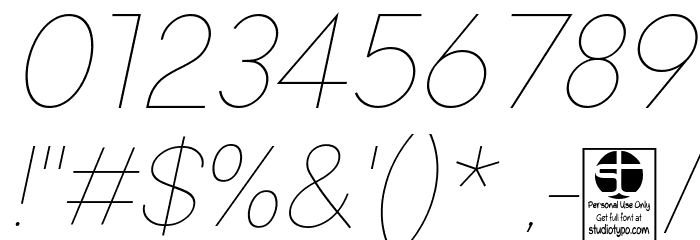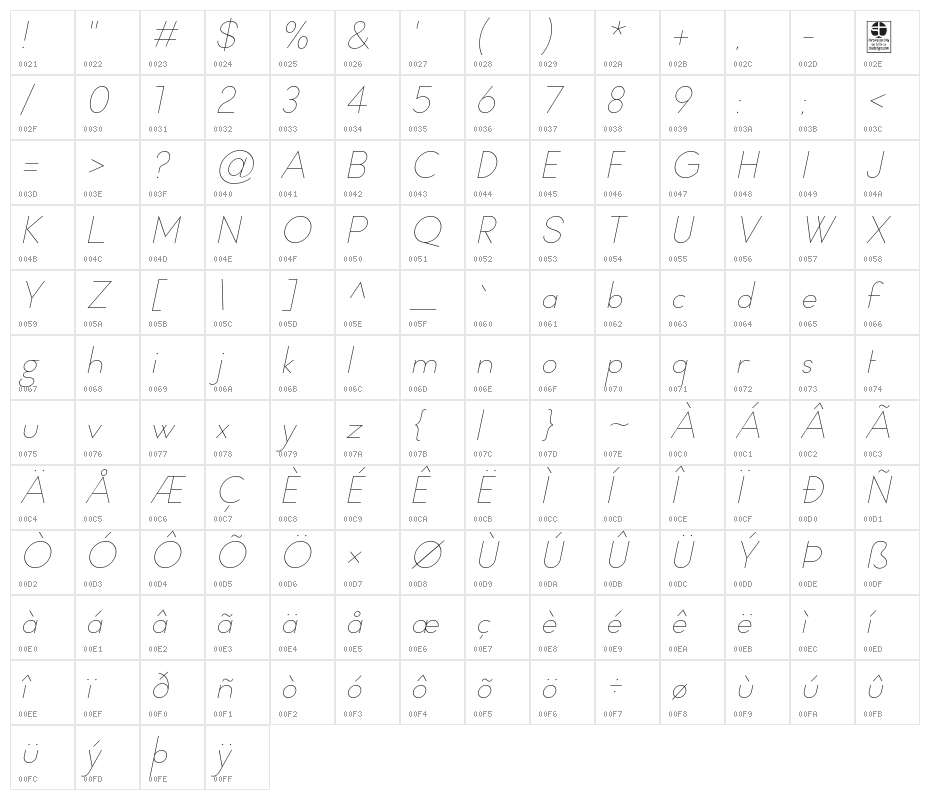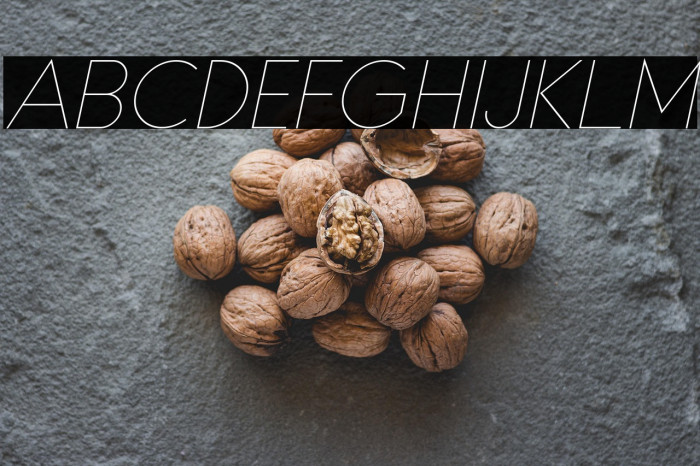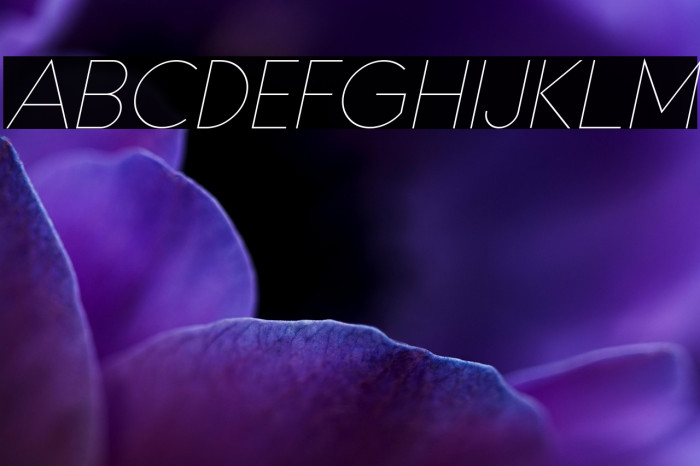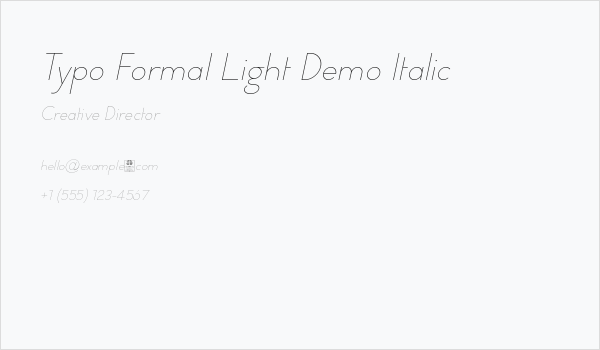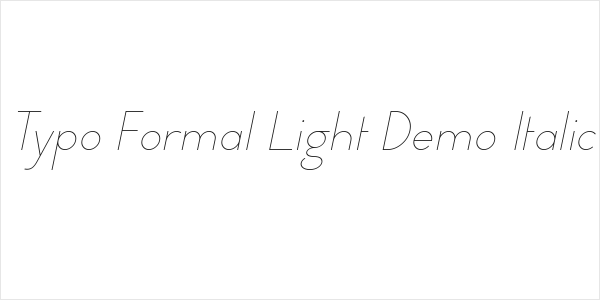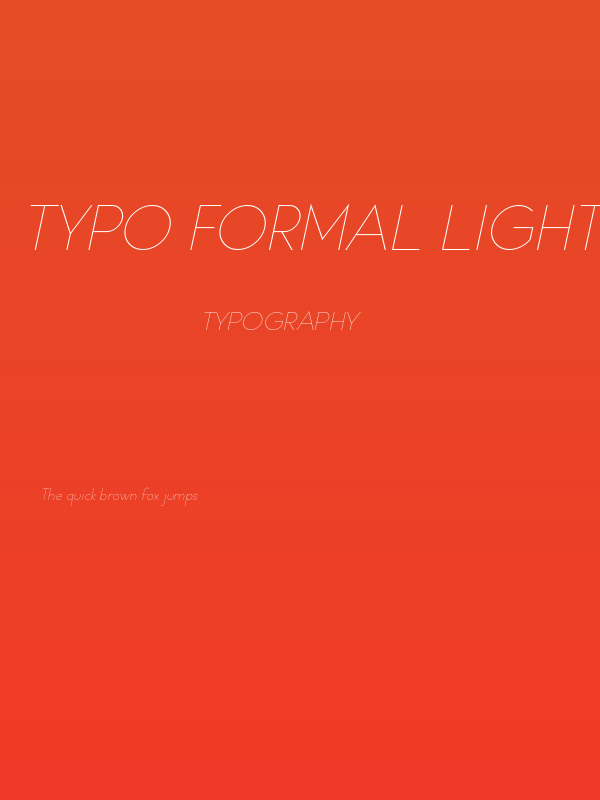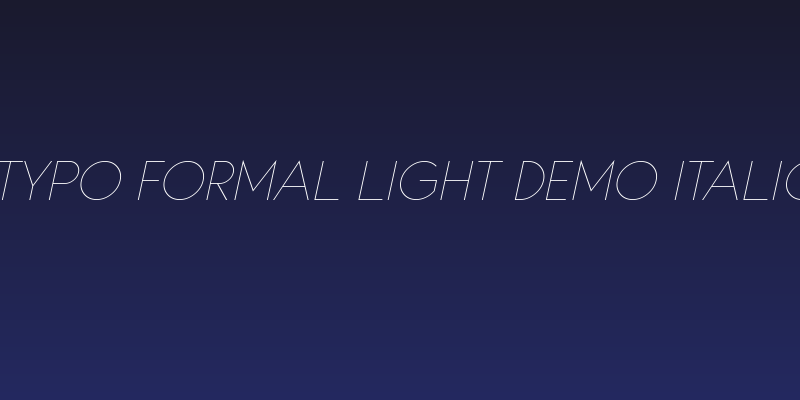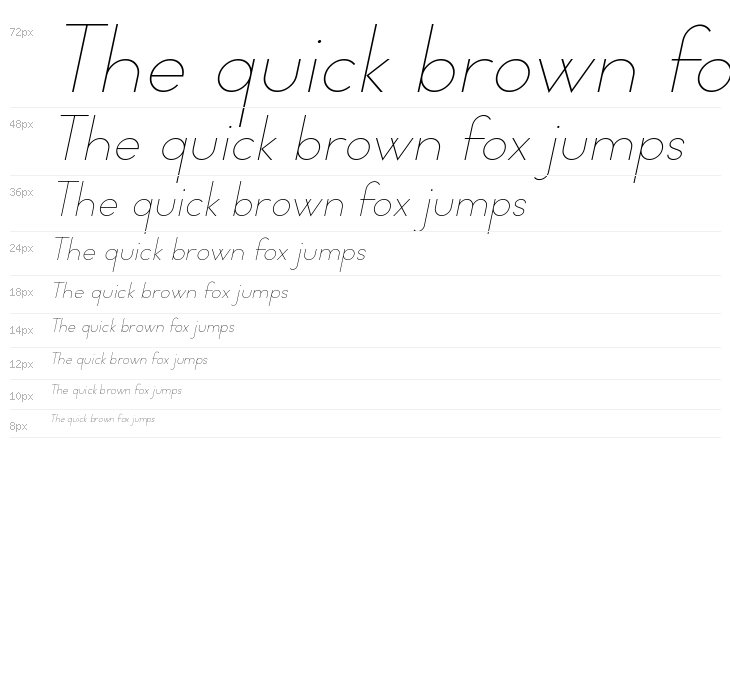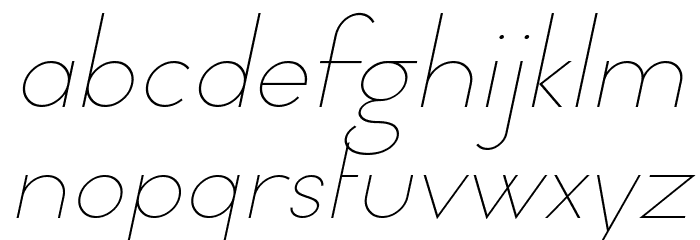
Typo Formal Light Demo Italic Font
Typo Formal Light Demo Italic Description
This font features a sleek and elegant design with a light and airy feel. The characters are italicized, giving them a dynamic and sophisticated appearance. The strokes are thin and consistent, contributing to a clean and modern aesthetic. The uppercase and lowercase letters are well-proportioned, with a slight slant that enhances readability while maintaining a stylish look. The numbers and special characters are designed to match the overall lightness and elegance of the font, making it versatile for various design needs.